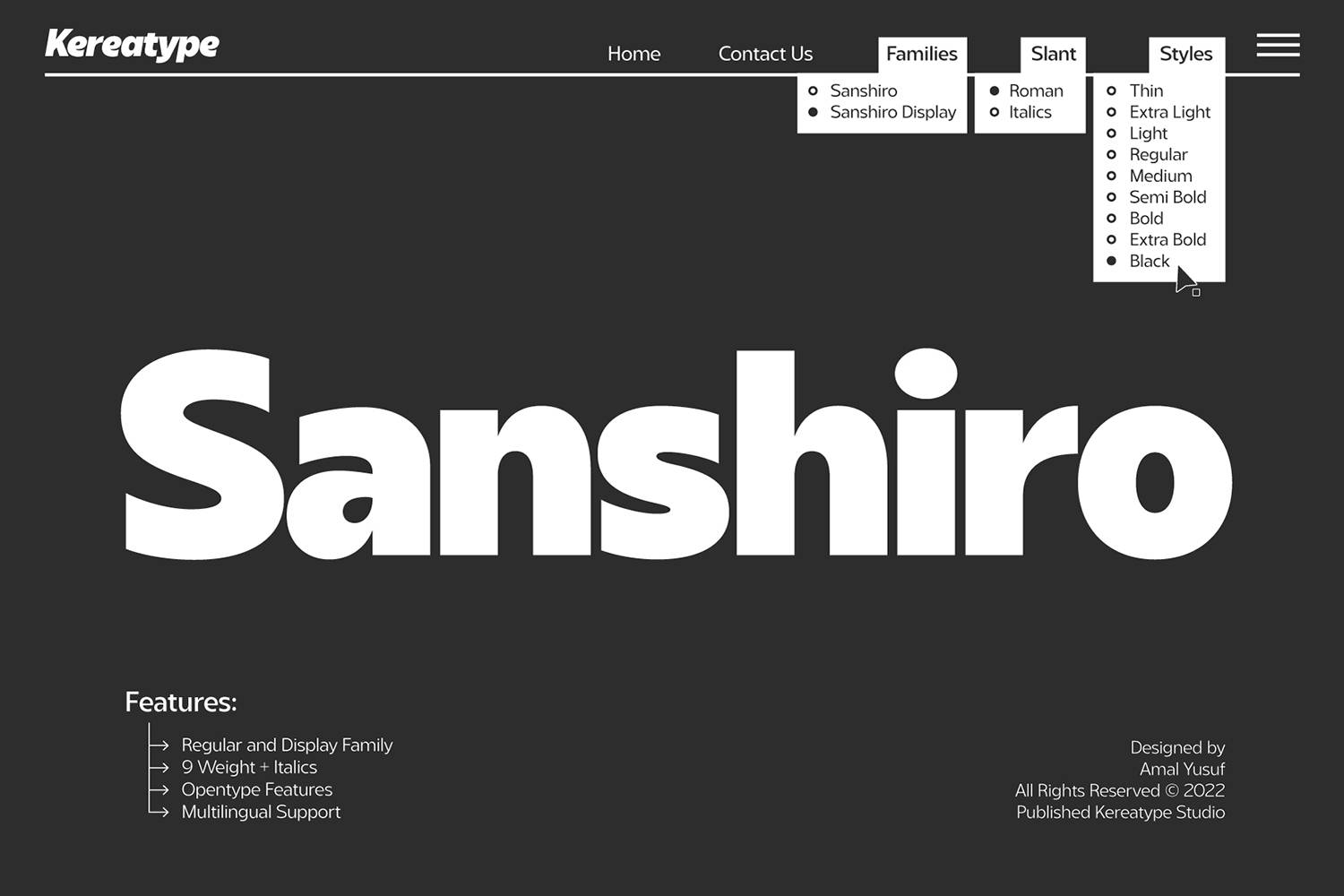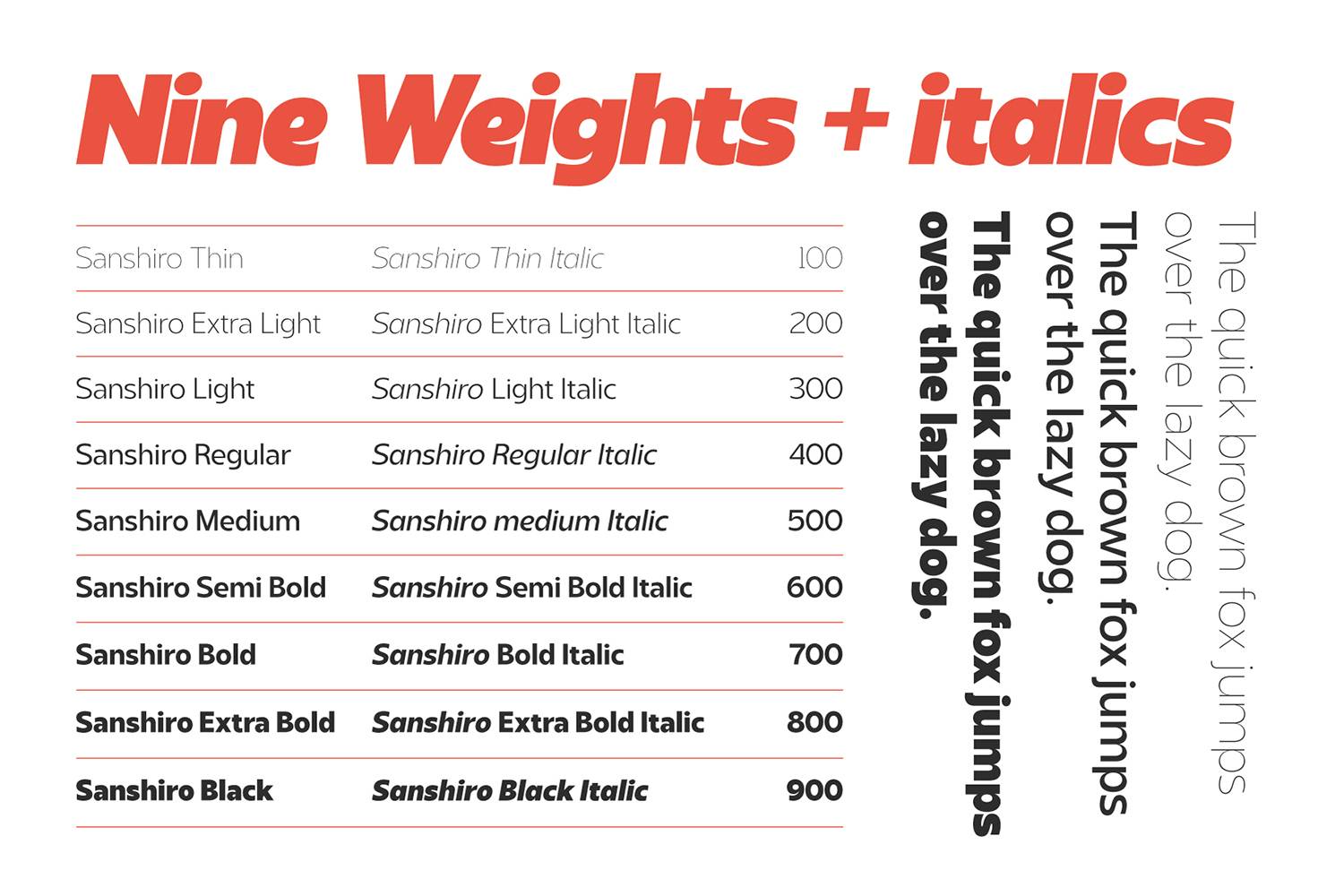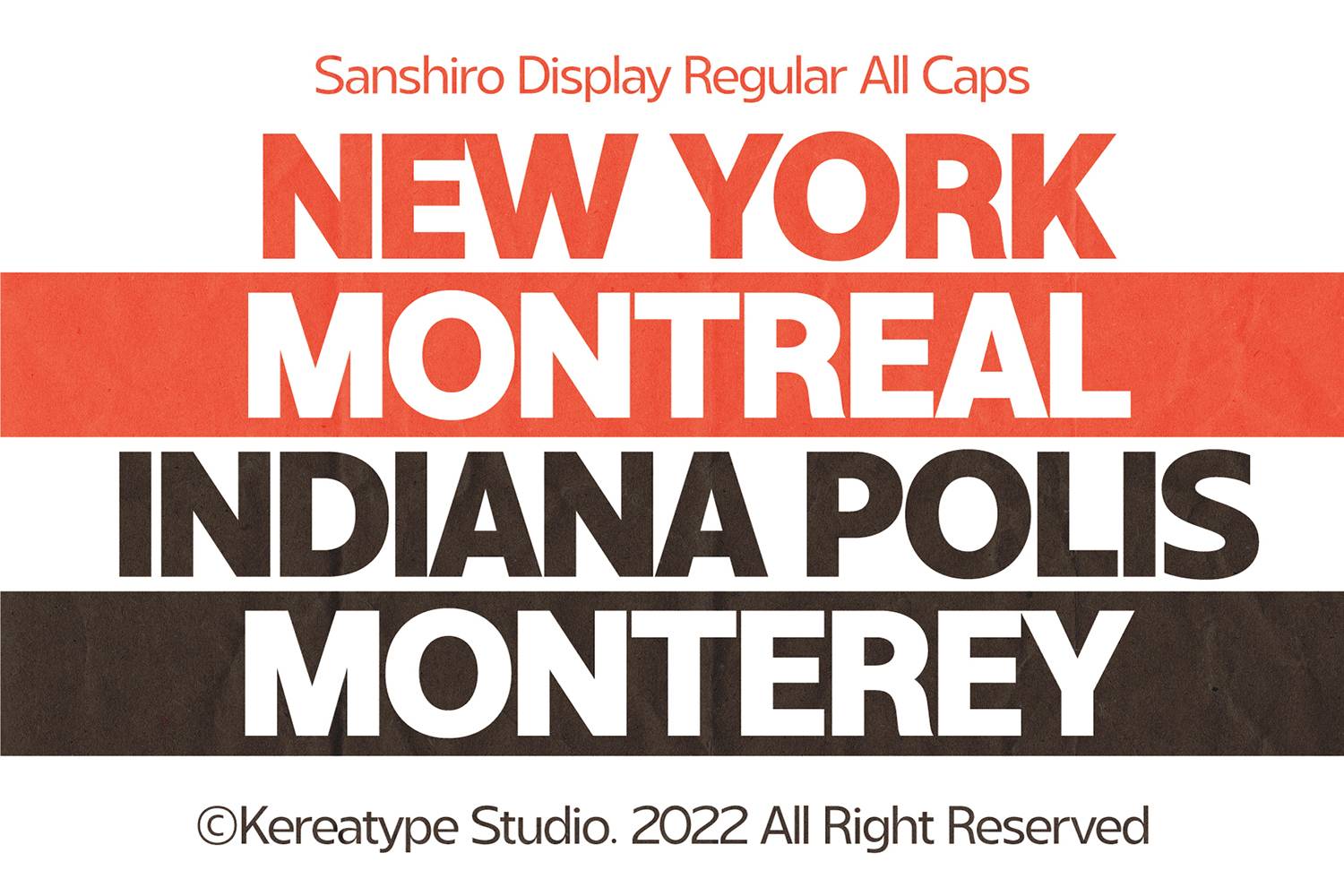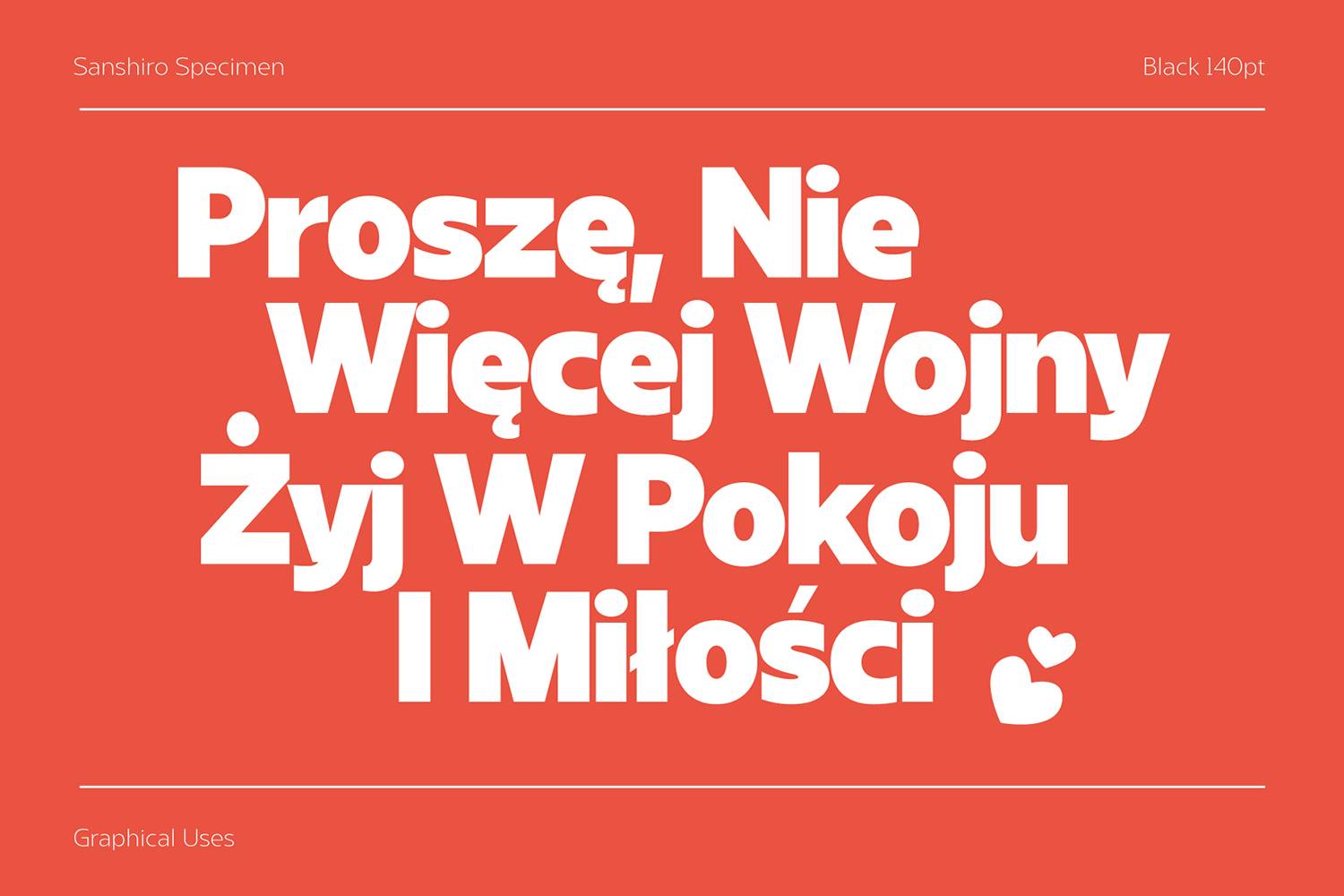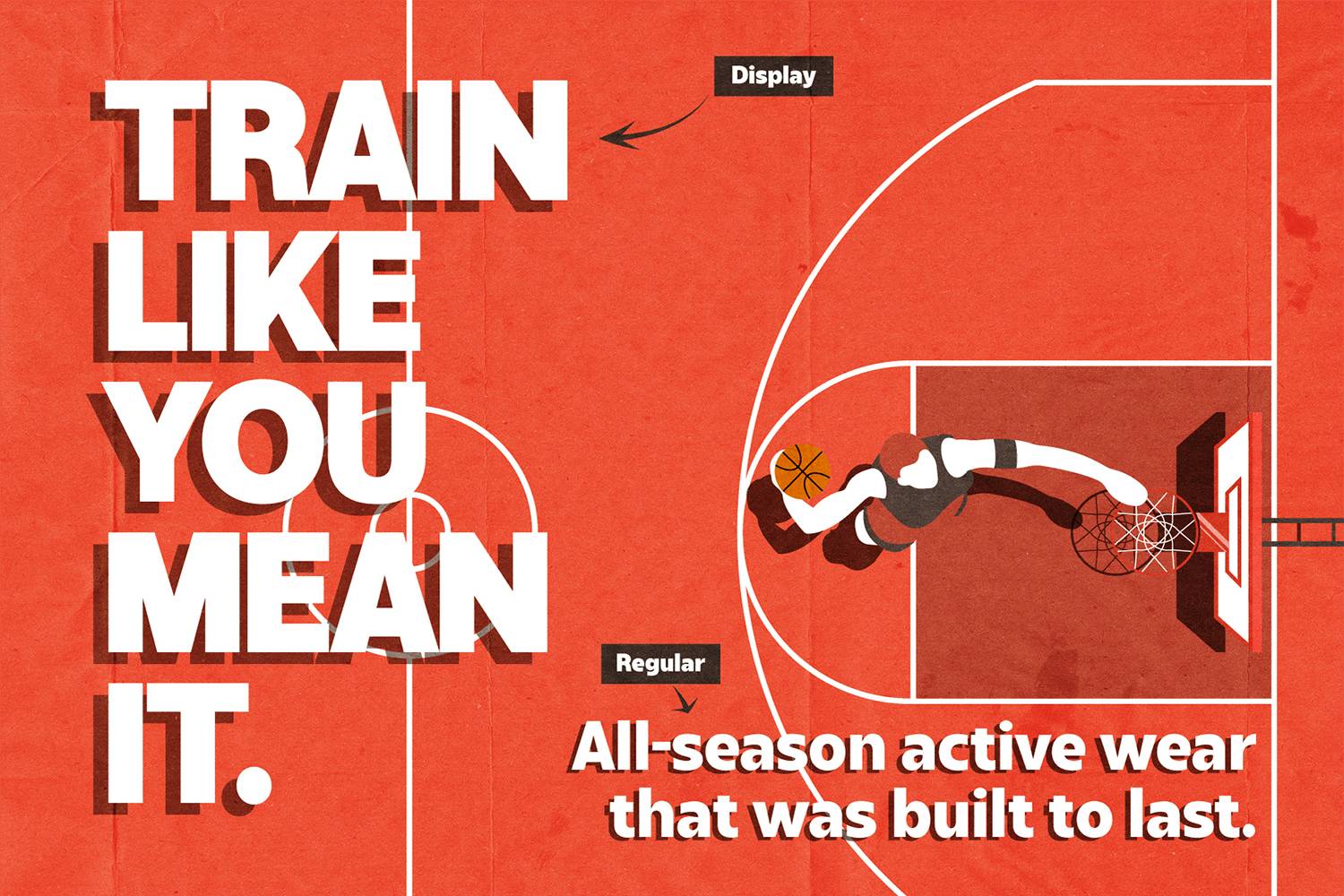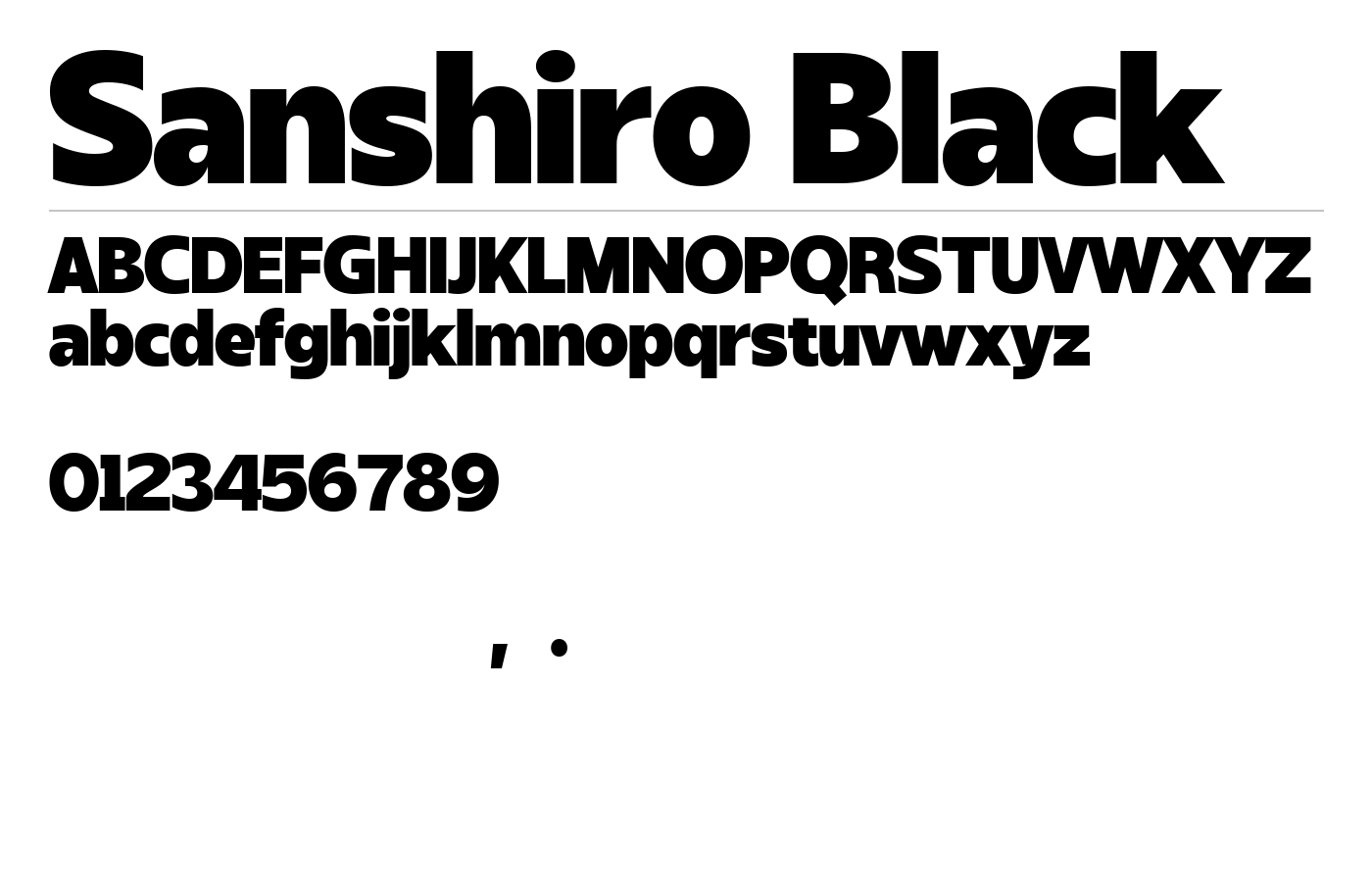
Sanshiro Black is a bold, modern sans serif font with a strong, geometric feel and a high x-height that enhances readability. Its thick, uniform strokes and wide letterforms give it a confident, impactful presence, making it ideal for headlines, logos, and branding where clarity and boldness are key. This font works well in contemporary designs that seek a clean, straightforward aesthetic with a touch of powerful personality.
Sanshiro Font
About Sanshiro Font